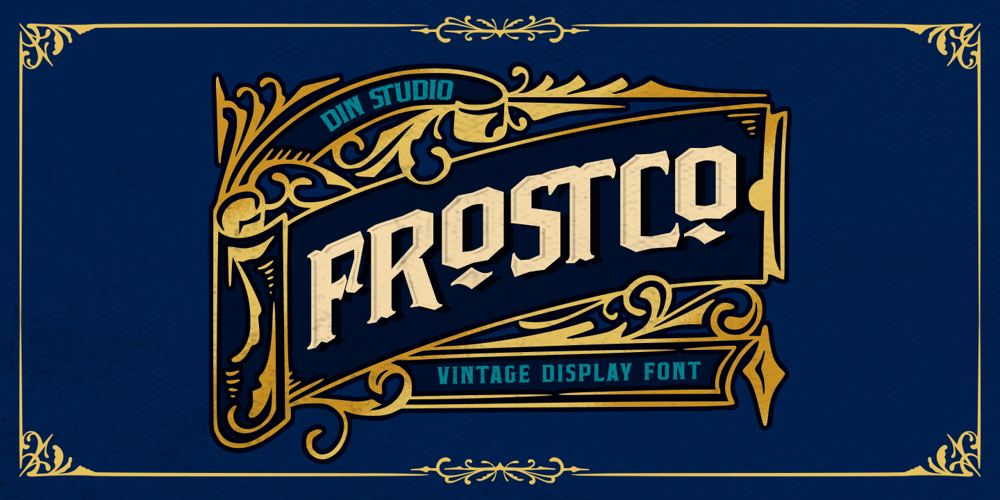
Frostco Font Family was designed by Donis Miftahudin and published by Din Studio. Frostco contains 1 styles and family package options. Introducing Frostco – a bold, vintage-style display font that captures attention with its rugged charm. Crafted in all caps with a strong, bold weight, Frostco stands out with its distinctive outline, which is made in subtle curves and irregularities instead of straight lines. This unique touch adds an authentic, handcrafted feel, perfect for retro-inspired vibes. As an extra, this font gives ornaments. In addition, enjoy the features here.Features: Alternates Ligatures Multilingual Supports PUA Encoded Numerals and Punctuations Frostco fits in logos, posters, flyers, branding materials, print media, editorial layouts, and many more designs. Find out more ways to use this font by taking a look at the font preview.Thanks for purchasing our fonts. Hopefully, you have a great time using our font. Feel free to contact us anytime for further information or when you have trouble with the font. Thanks a lot and happy designing.